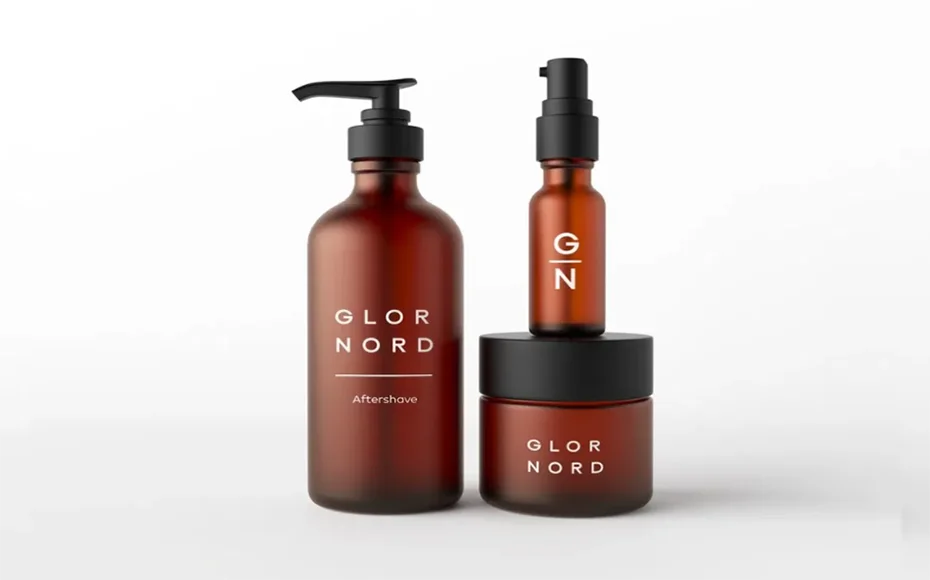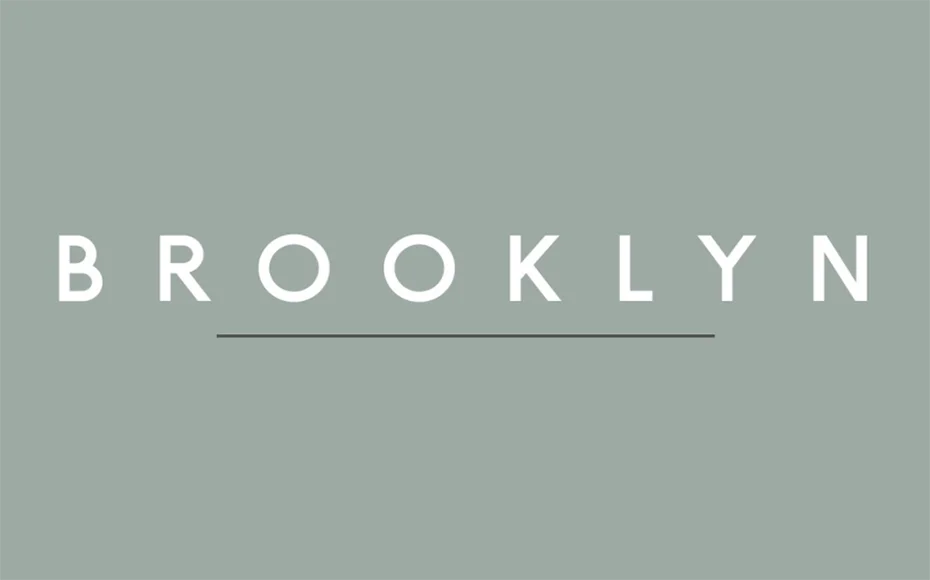
The Brooklyn Font is a minimal, simple, and clean sans-serif typeface. It can easily be combined with an incredibly large set of projects, so add it to your creative ideas and see how it makes them stand out!
An American font designer Brittney Murphy took the charge of designing and publishing it for the first time.
It contains a clean texture with a small texture. It is smaller in height and width than the standard size. And the space between the letters is more than the standard size.
These features make it beautiful and unique. But the overall structure is the same as we usually see in other sans serif fonts. Therefore, for this reason, it is considered unique.
Here we are attaching a picture from which you can see and guess what the typeface will be.
It is ideal for multiple designs with its help like covers, posters, banners, headlines, logos, brochures, game titles, product designs, product packaging, magazines, game developments, cv templates, unique emblems, card print, etc.
This fantastic typeface comes in two unique styles that possess Open Type features. The fonts have 475 characters, including Cyrillic and lots of accented Latin.